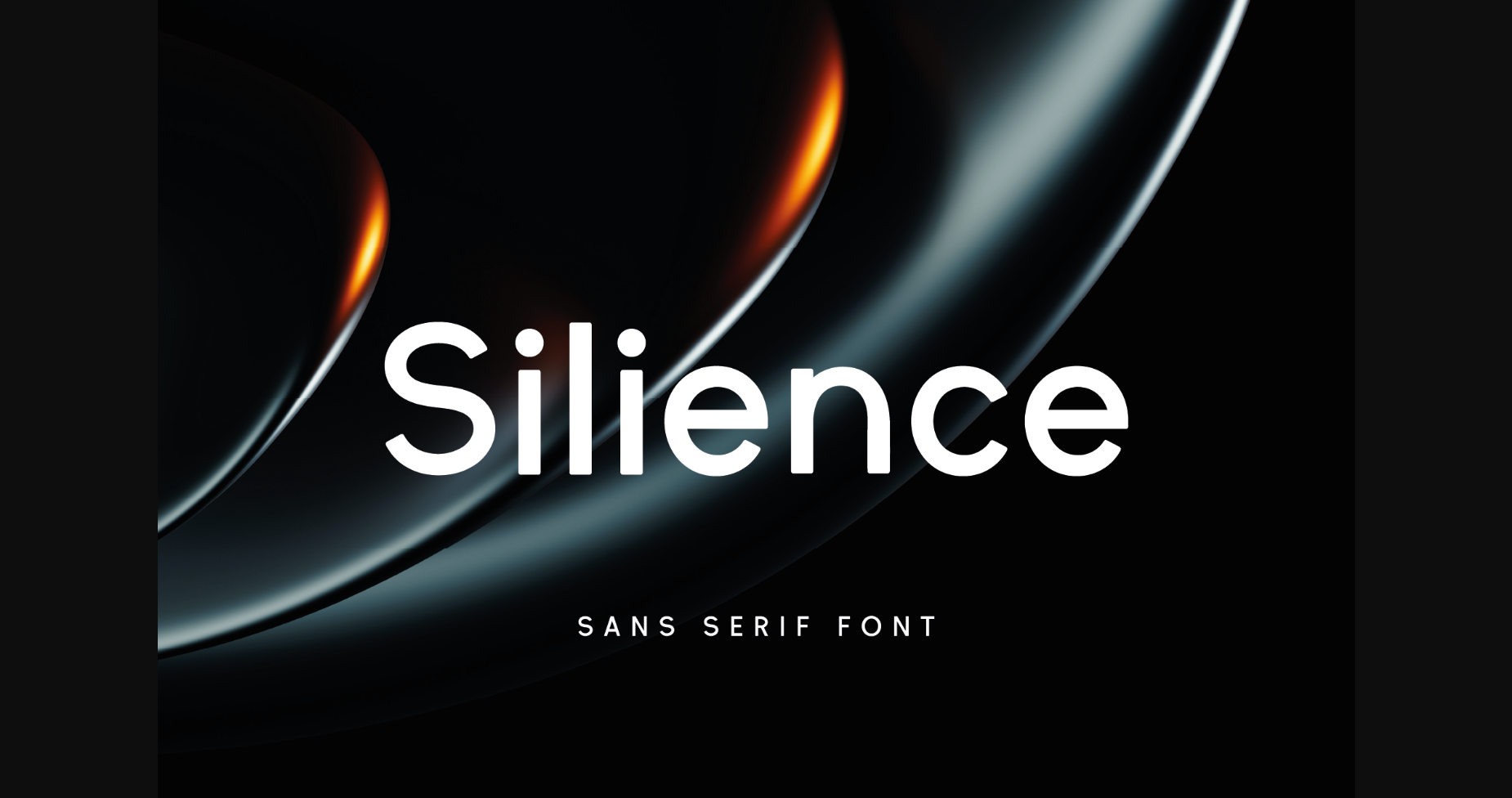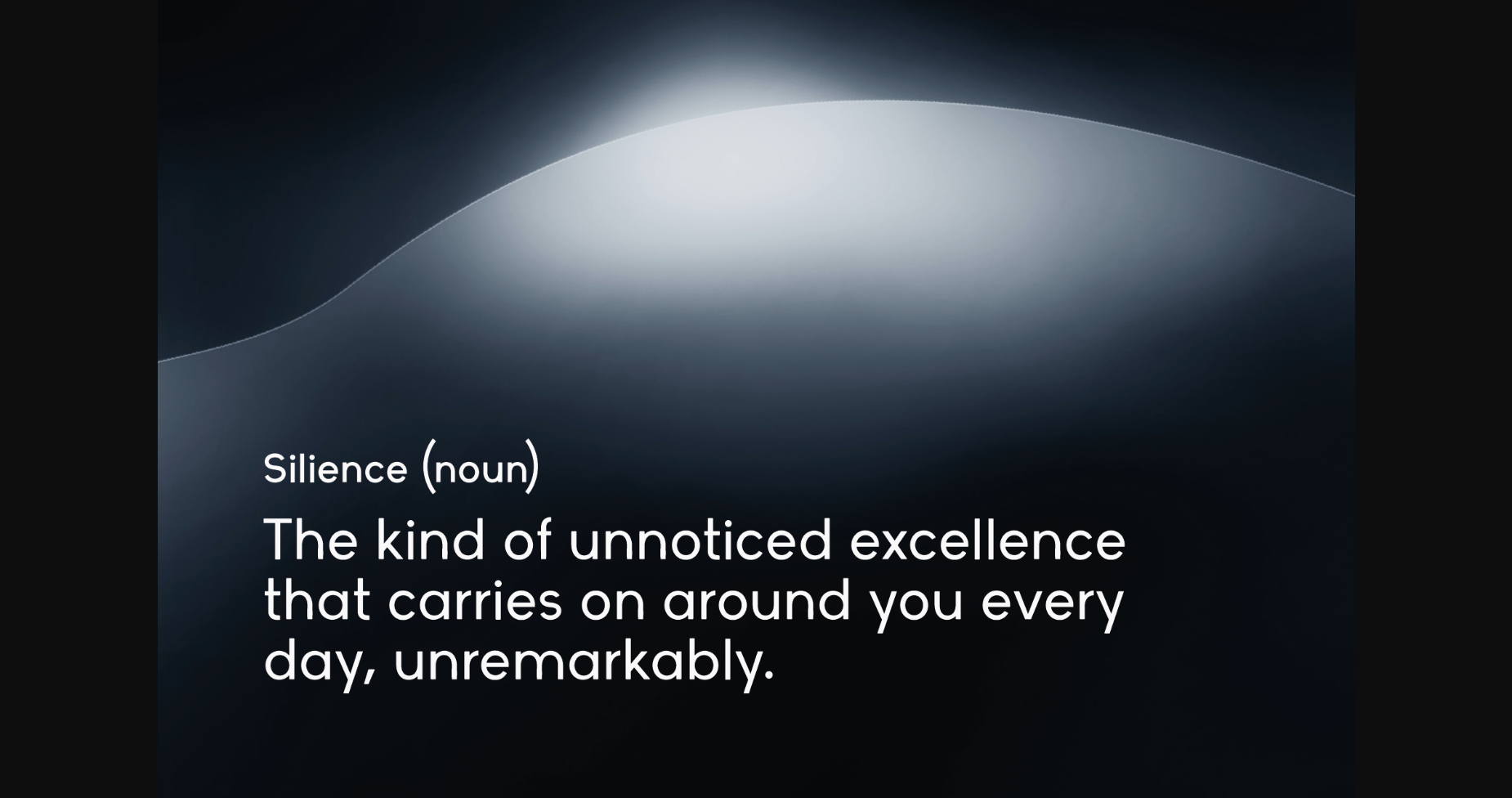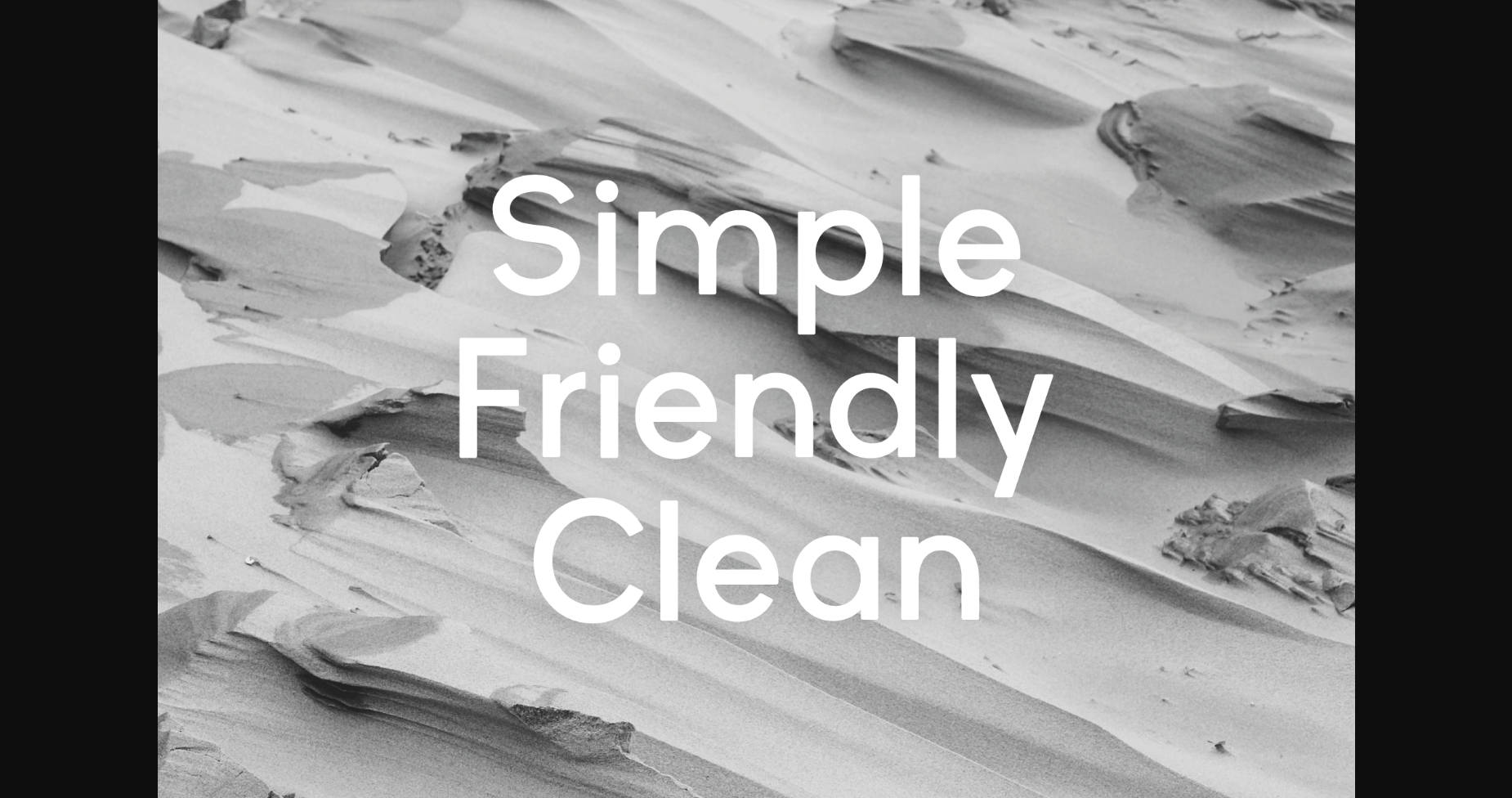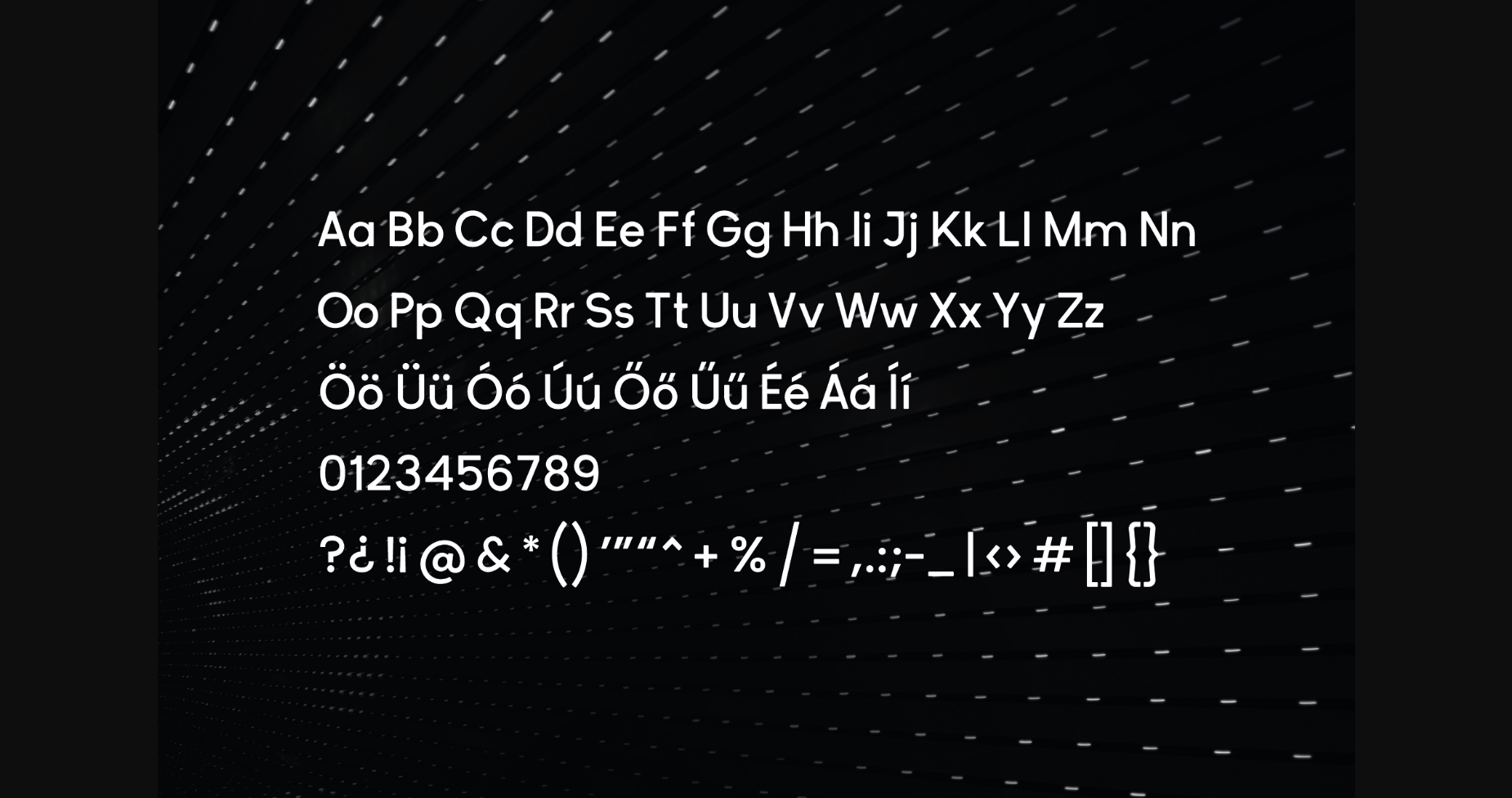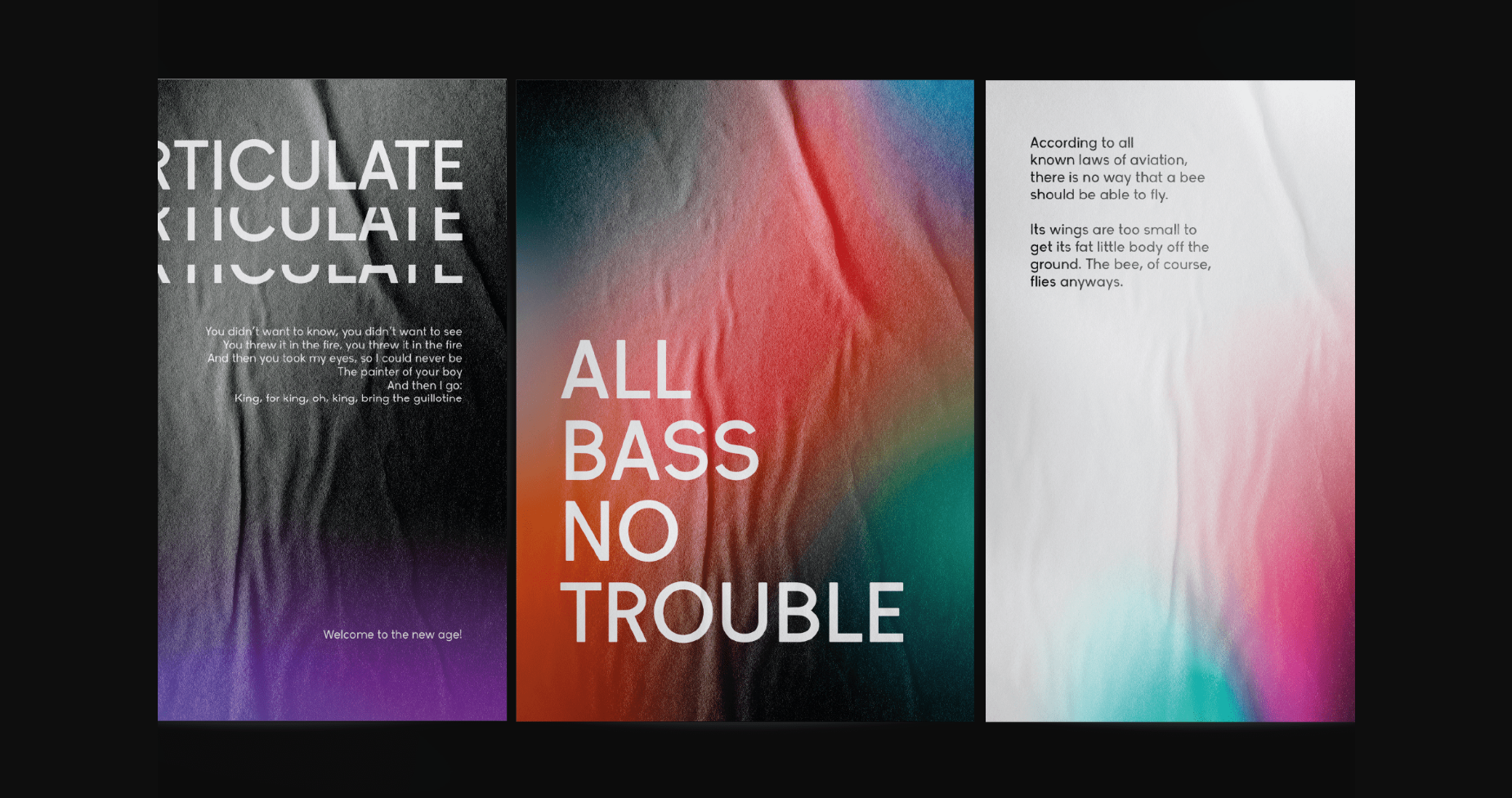
About Silience Font
Silience is a clean and neat sans serif font. You can use it for various projects, such as blog posts, logos, branding, ads, invitations, greeting cards, planners, photo albums, decorations, and much more.